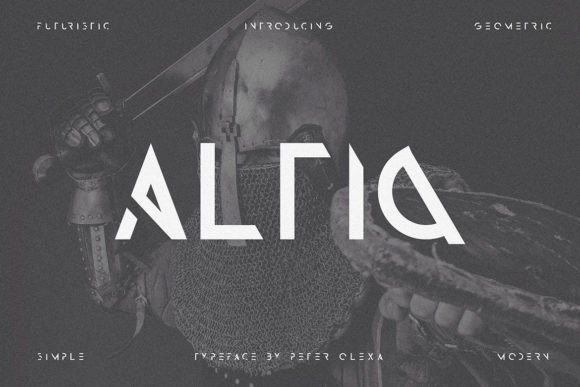
Introducing Altiq Font: The Ultimate Geometric and Modern Typeface for Your Creative Projects
Are you a designer or crafter looking for a unique and versatile font to elevate your projects? Look no further than Altiq Font, a creative, futuristic, geometric, modern, and minimalist typeface that’s perfect for a wide range of applications. With its sharp, geometric style, Altiq Font is ideal for modern and futuristic projects that require a sleek, cutting-edge aesthetic.
What is Altiq Font?
Altiq Font is a carefully crafted typeface that combines geometric shapes with a modern and minimalist approach. Its futuristic design makes it perfect for projects that require a bold, forward-thinking look. Whether you’re working on a logo, branding, advertising, or digital media, Altiq Font is the perfect choice for designers and crafters who want to make a statement.
Key Features of Altiq Font
- Geometric Style: Altiq Font features sharp, geometric shapes that give it a modern and futuristic look.
- Modern and Minimalist: The font’s clean lines and simple design make it perfect for projects that require a sleek, minimalist aesthetic.
- Creative and Versatile: Altiq Font can be used for a wide range of projects, from logos and branding to advertising and digital media.
- Easy to Read: Despite its geometric style, Altiq Font is easy to read, making it perfect for body text and headlines.
Use Cases for Altiq Font
Altiq Font is perfect for a variety of projects, including:
- Logo Design: Create a bold, modern logo that stands out with Altiq Font.
- Branding: Use Altiq Font to create a consistent brand identity that’s both modern and sophisticated.
- Advertising: Make a statement with Altiq Font in your advertising campaigns, from print ads to digital banners.
- Digital Media: Use Altiq Font in your digital media projects, such as video games, mobile apps, and websites.
Why Choose Altiq Font?
With so many fonts available, why choose Altiq Font? Here are just a few reasons:
- Unique Design: Altiq Font’s geometric style sets it apart from other fonts, making it perfect for designers and crafters who want to create something unique.
- High-Quality: Altiq Font is a high-quality font that’s designed to look great in any context.
If you’re looking for a creative, futuristic, geometric, modern, and minimalist font for your next project, look no further than Altiq Font. With its sharp, geometric style and versatile design, Altiq Font is perfect for a wide range of applications. Whether you’re a designer or crafter, Altiq Font is the perfect choice for anyone who wants to create something bold, modern, and eye-catching.